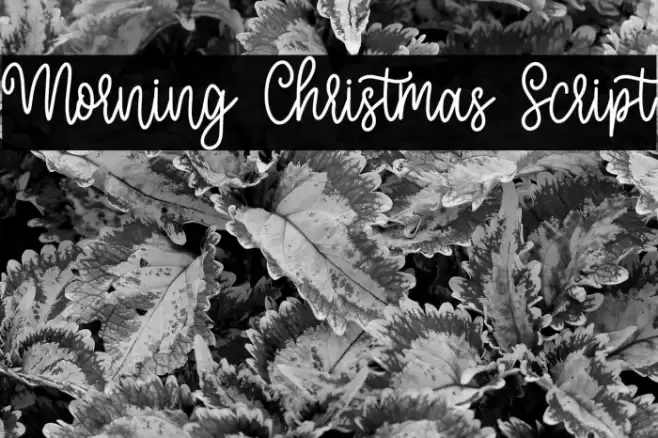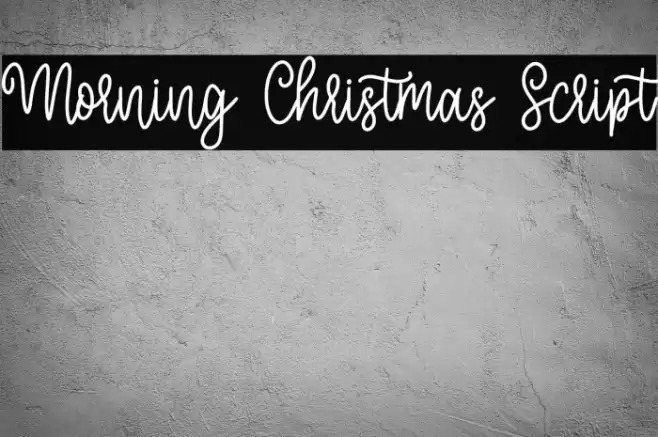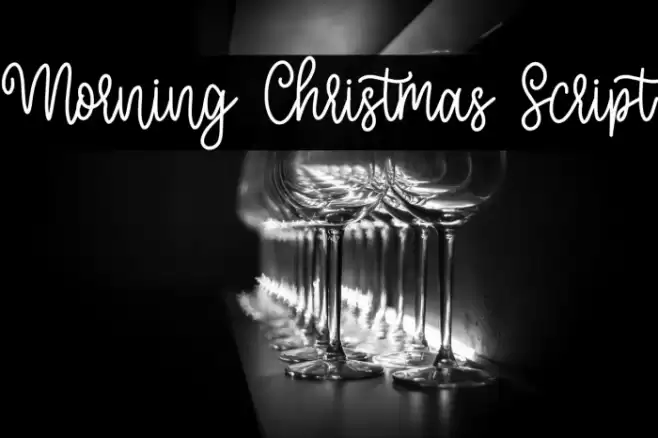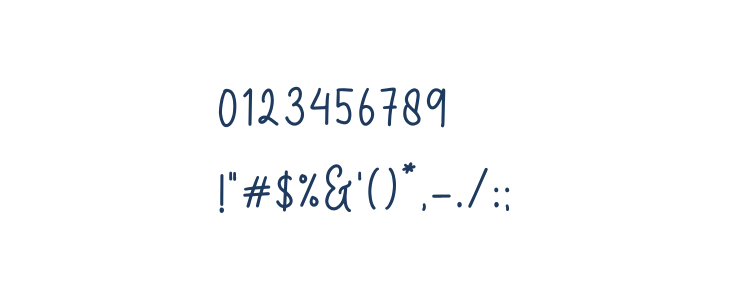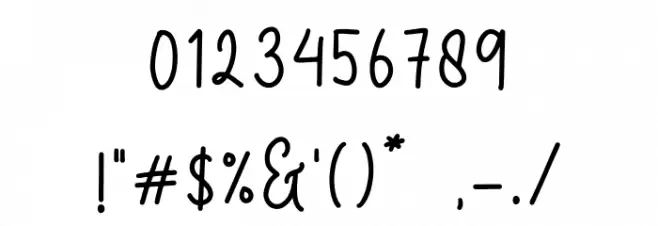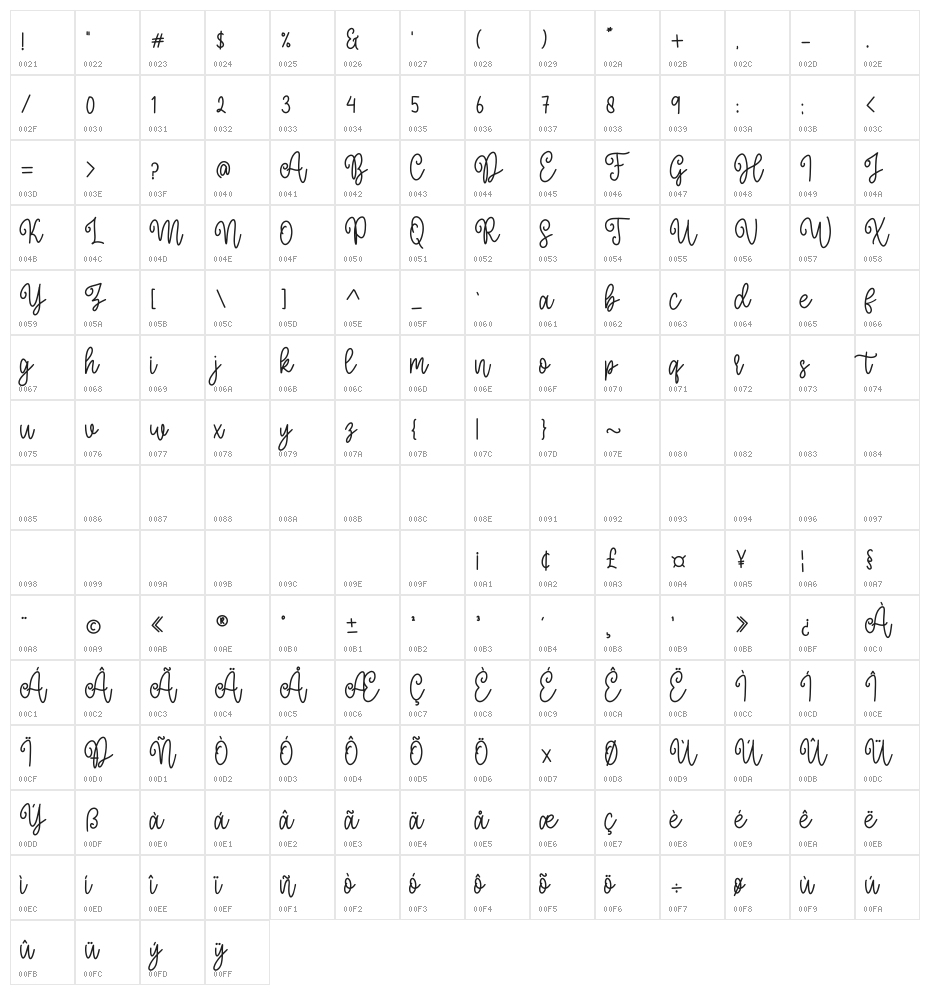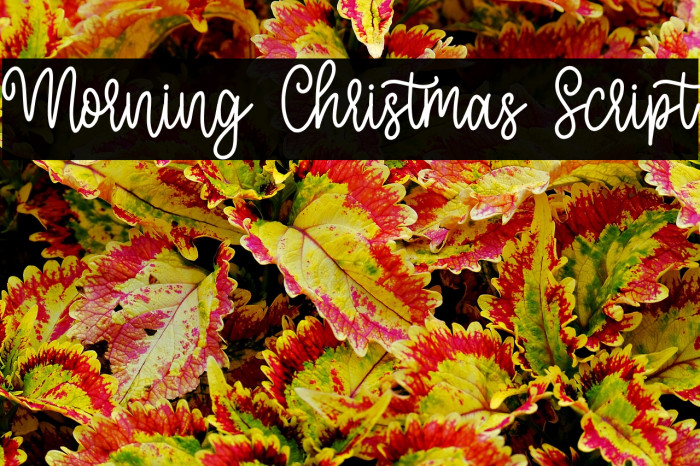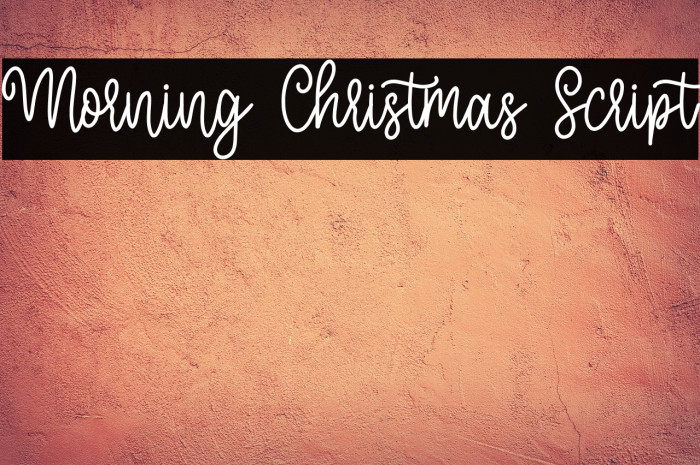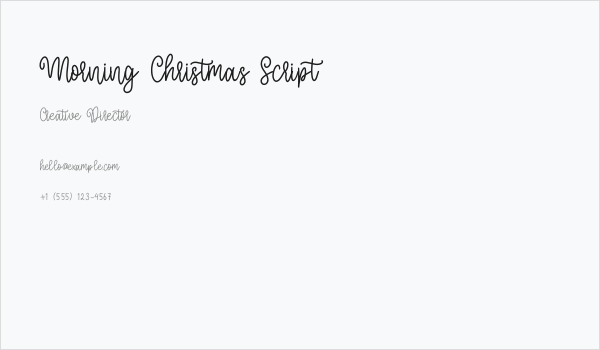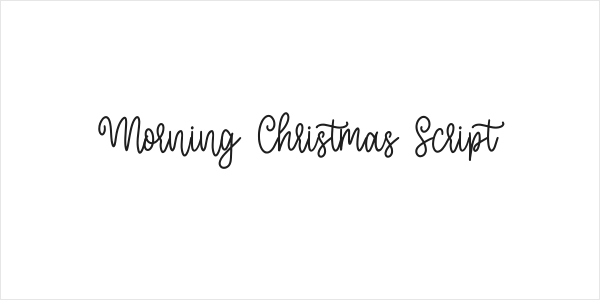
Morning Christmas Script Font
Morning Christmas Script Description
This elegant script font features a flowing, handwritten style that exudes a festive and joyful spirit. The uppercase letters are gracefully looped and connected, while the lowercase letters maintain a consistent, smooth flow. The numbers and special characters complement the overall design with their rounded and playful appearance. This font captures the essence of a handwritten note, making it perfect for adding a personal touch to any project. The strokes are consistent in thickness, providing a balanced and harmonious look.
A festive and elegant script font with a flowing, handwritten style from Regular fonts.